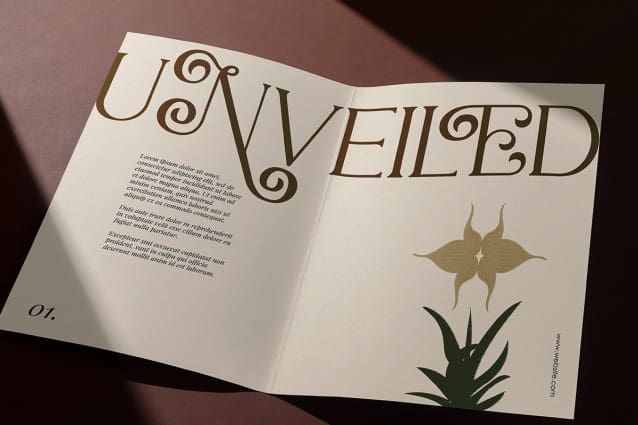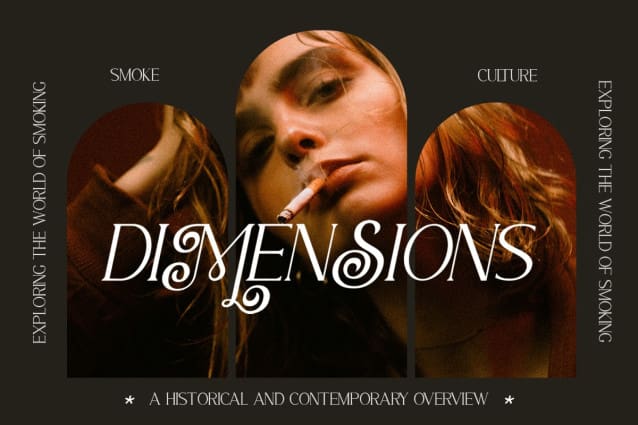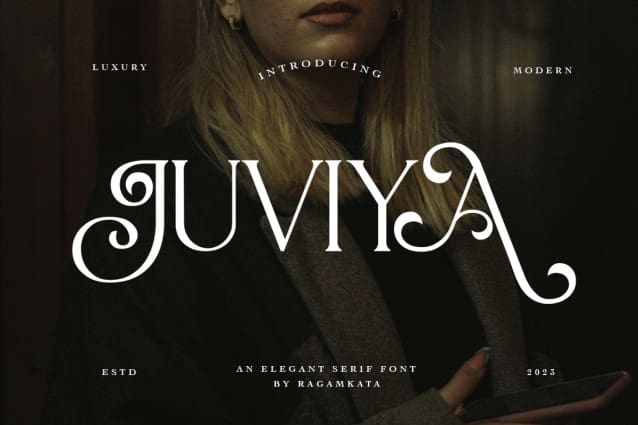
Juviya Font
Juviya Font is a Elegant Serif Typeface , unique & nostalgic typeface I like so much that I wanted to make it super personal, so that is why the Juviya Font is in the name. The main font is a serif, which in regular and italic looks cool, chic & fashionably elegant. Each font version comes with over 24 alternates of uppercase character set.